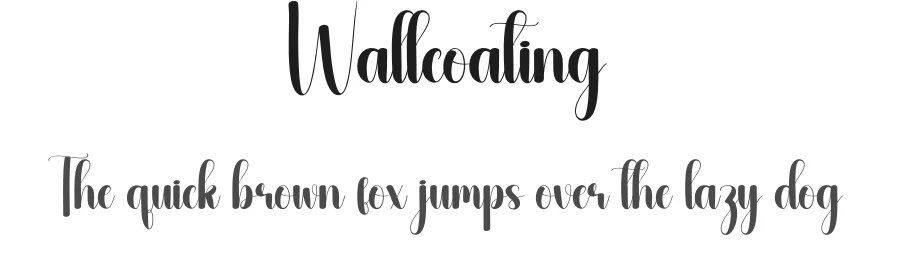
About Spring Night Font
Spring Night ships with 1 OpenType feature you can switch on in apps that support them (Illustrator, InDesign, Affinity, Figma, CSS font-feature-settings).
Spring Night supports 209 languages.
Spring Night Font is a script font that shines as a display or heading face. Pair it with a clean sans-serif or serif font for body text β the contrast creates a clear hierarchy while the two styles stay balanced and easy to read.
Spring Night Font